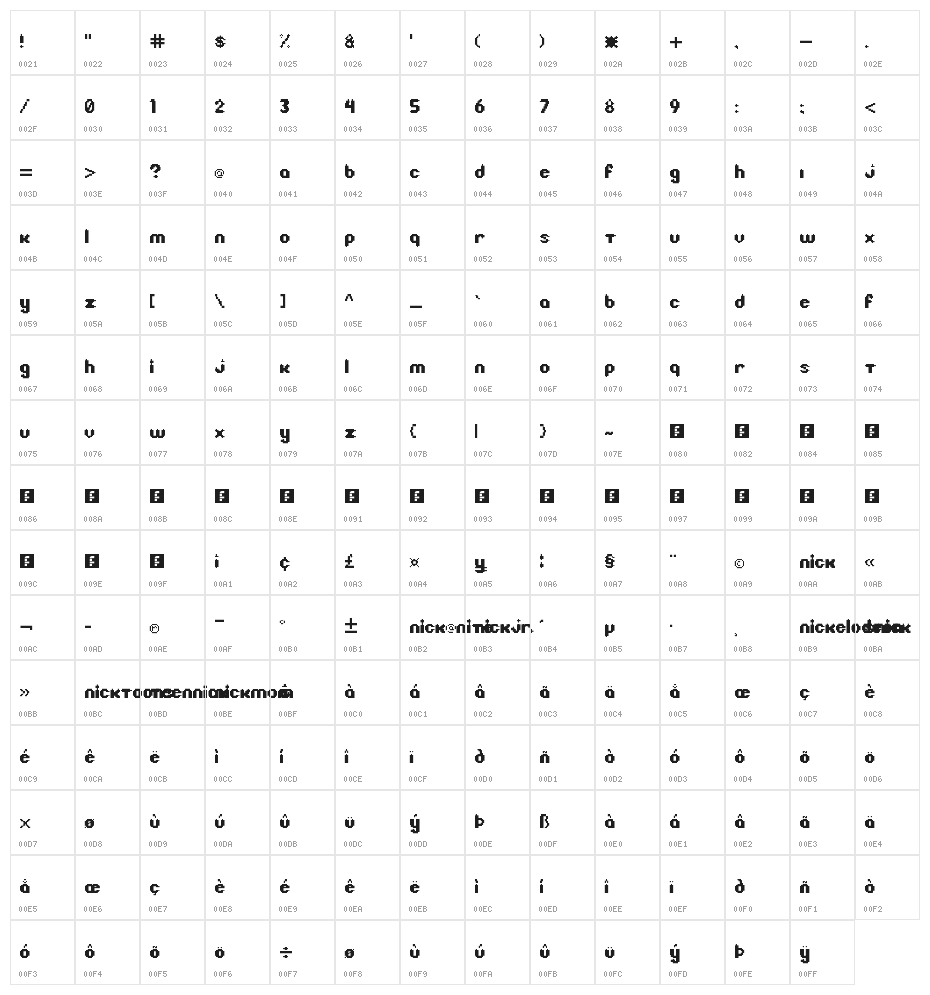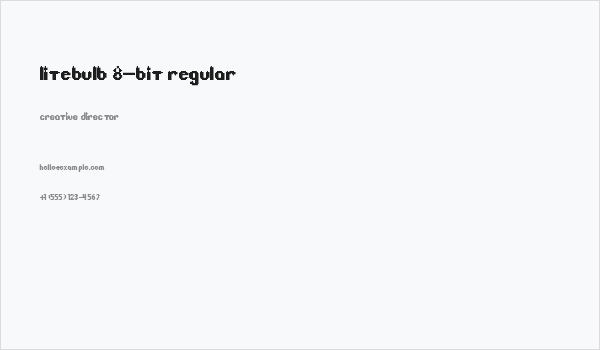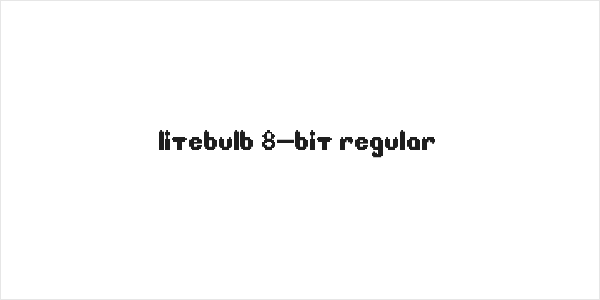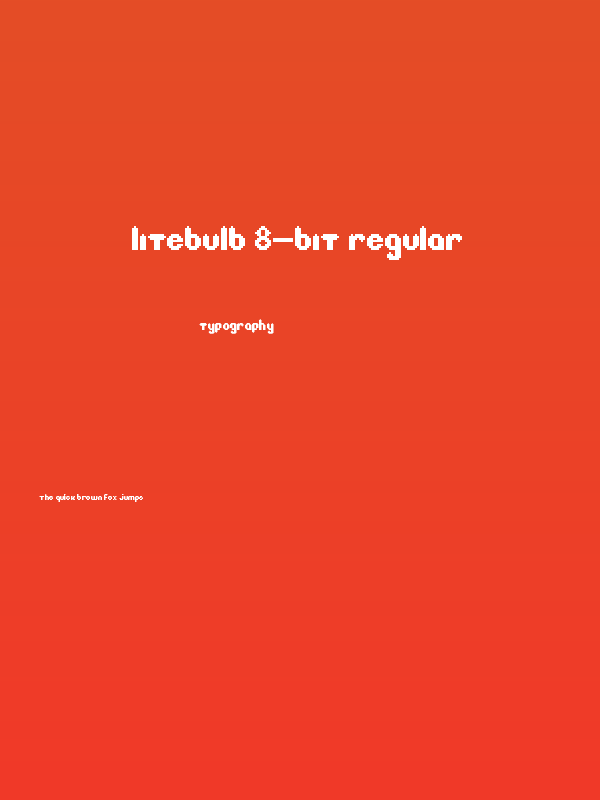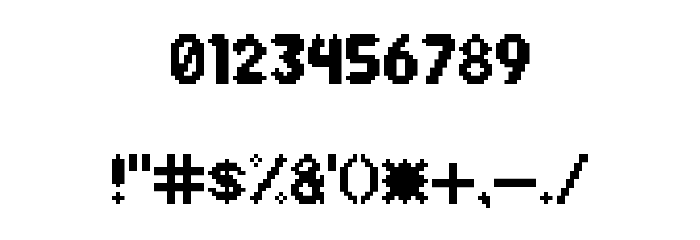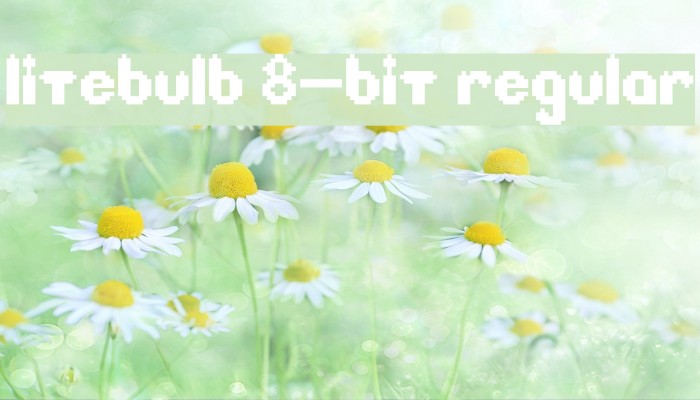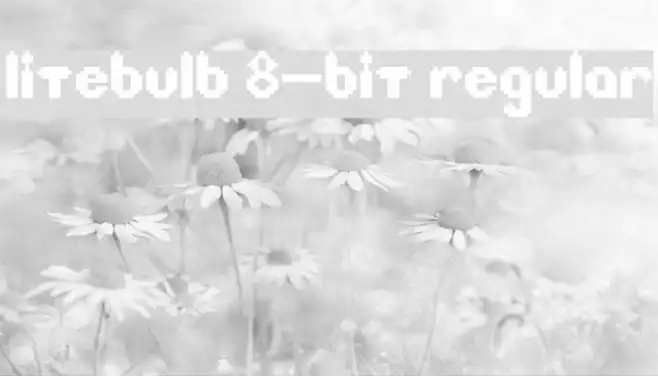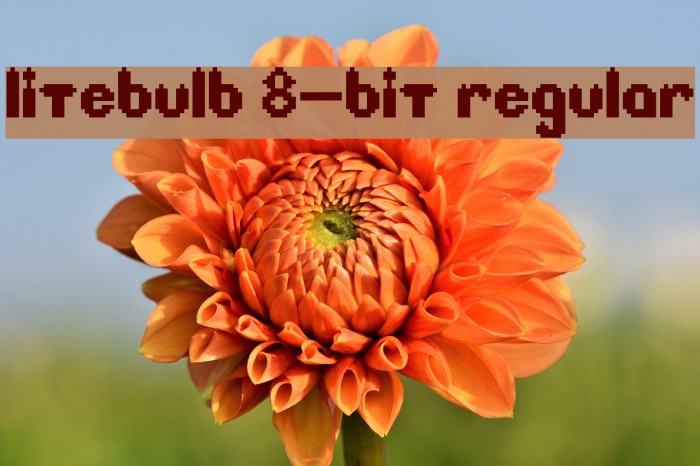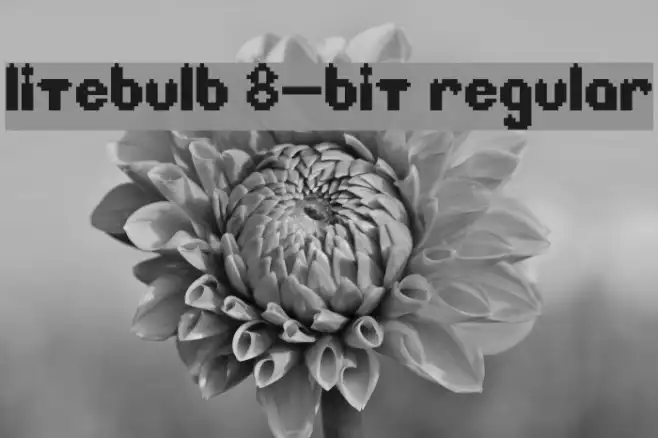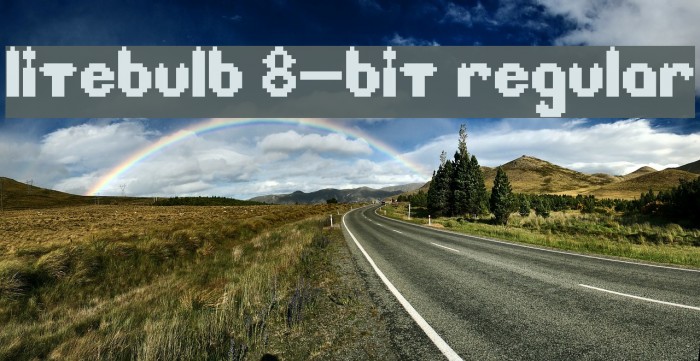
Litebulb 8-bit Regular Font
Litebulb 8-bit Regular Description
This font embodies a retro, pixelated style reminiscent of early video game graphics. Each character is constructed with a blocky, grid-like appearance, giving it a distinct 8-bit aesthetic. The uniformity in height and width across characters creates a cohesive look, while the sharp edges and corners enhance its digital feel. Despite its rigid structure, the font maintains legibility, making it suitable for both display and text purposes. The numbers and special characters follow the same design principles, ensuring consistency throughout the character set.
| Use Case | Headlines, Logos, Digital Art |
| Proposed Projects | Ideal for video game designs, retro-themed posters, digital art projects, and any creative work that seeks to evoke nostalgia for early digital graphics. |